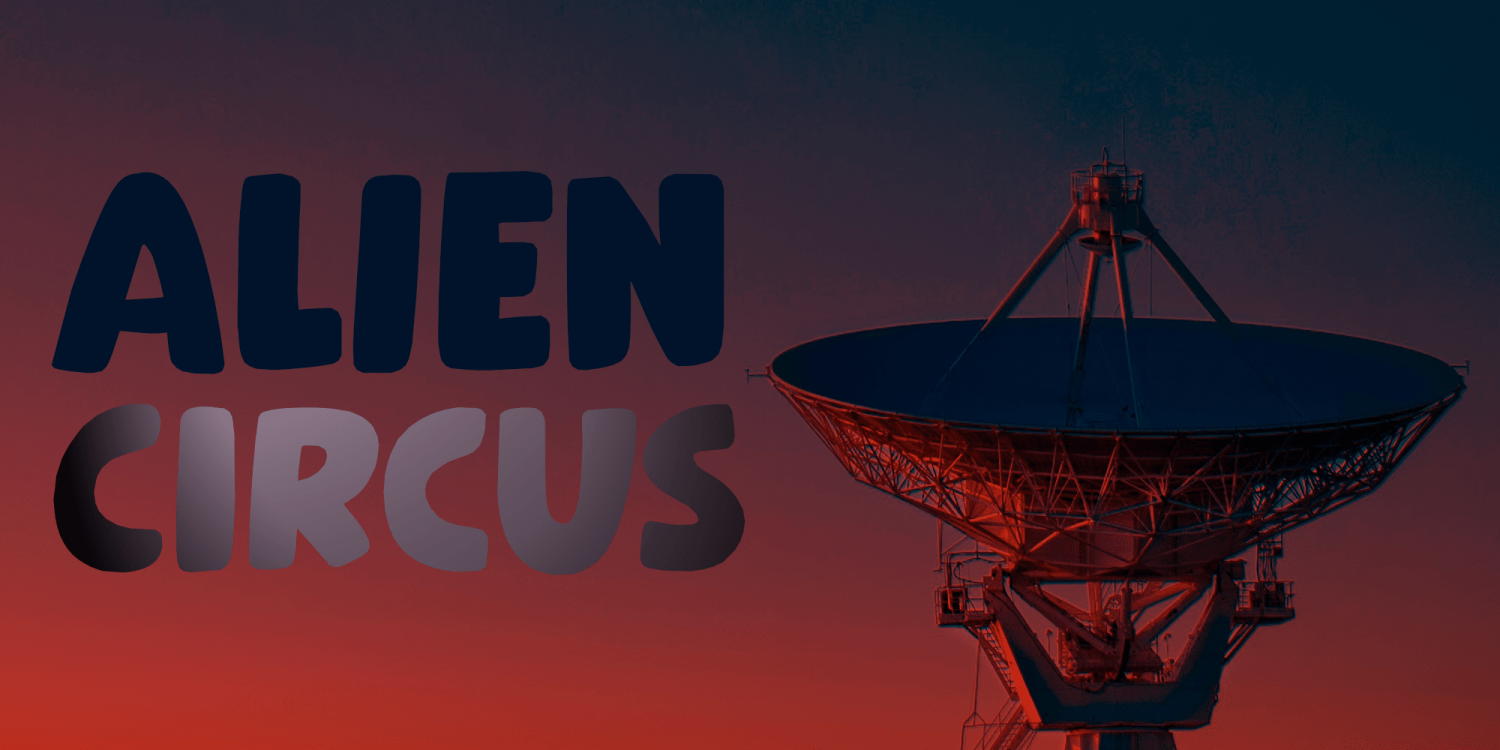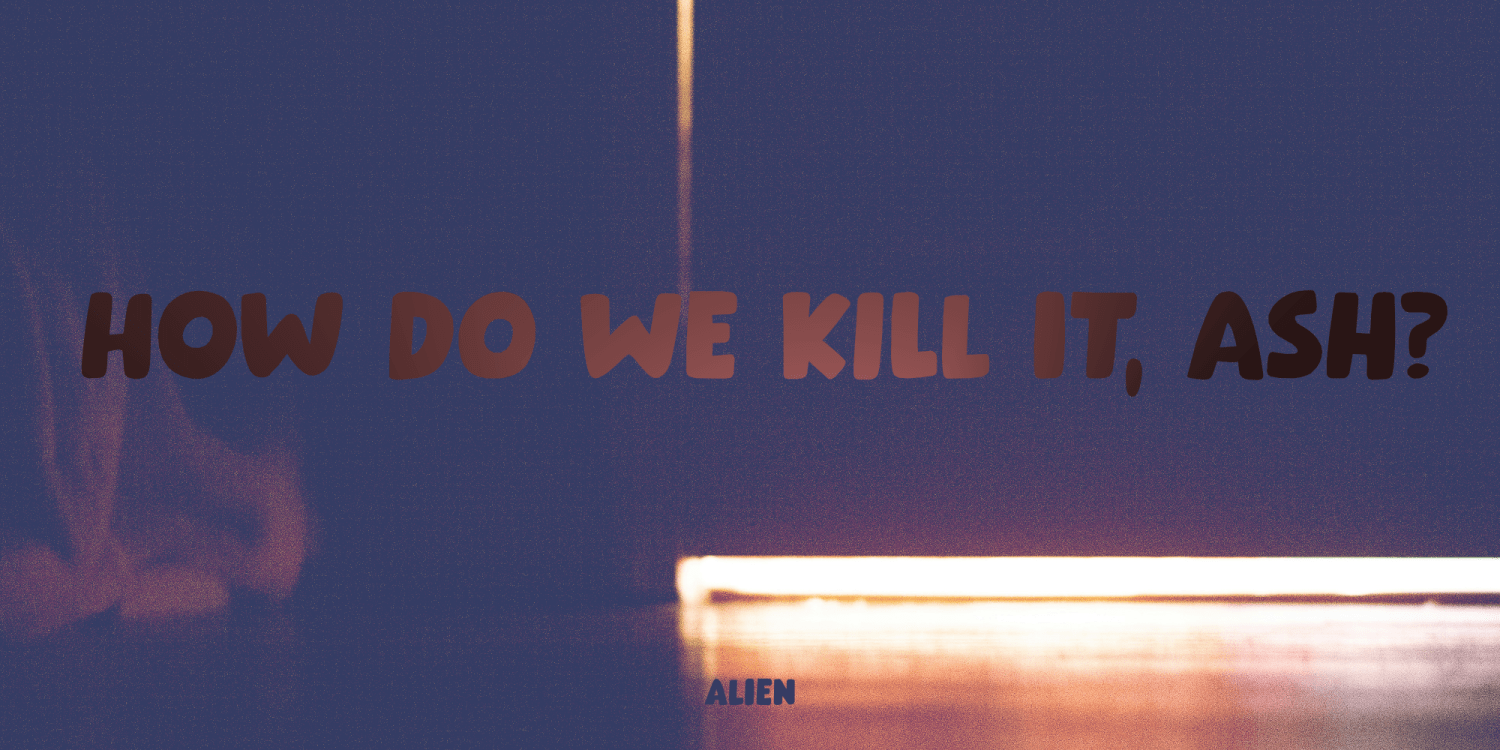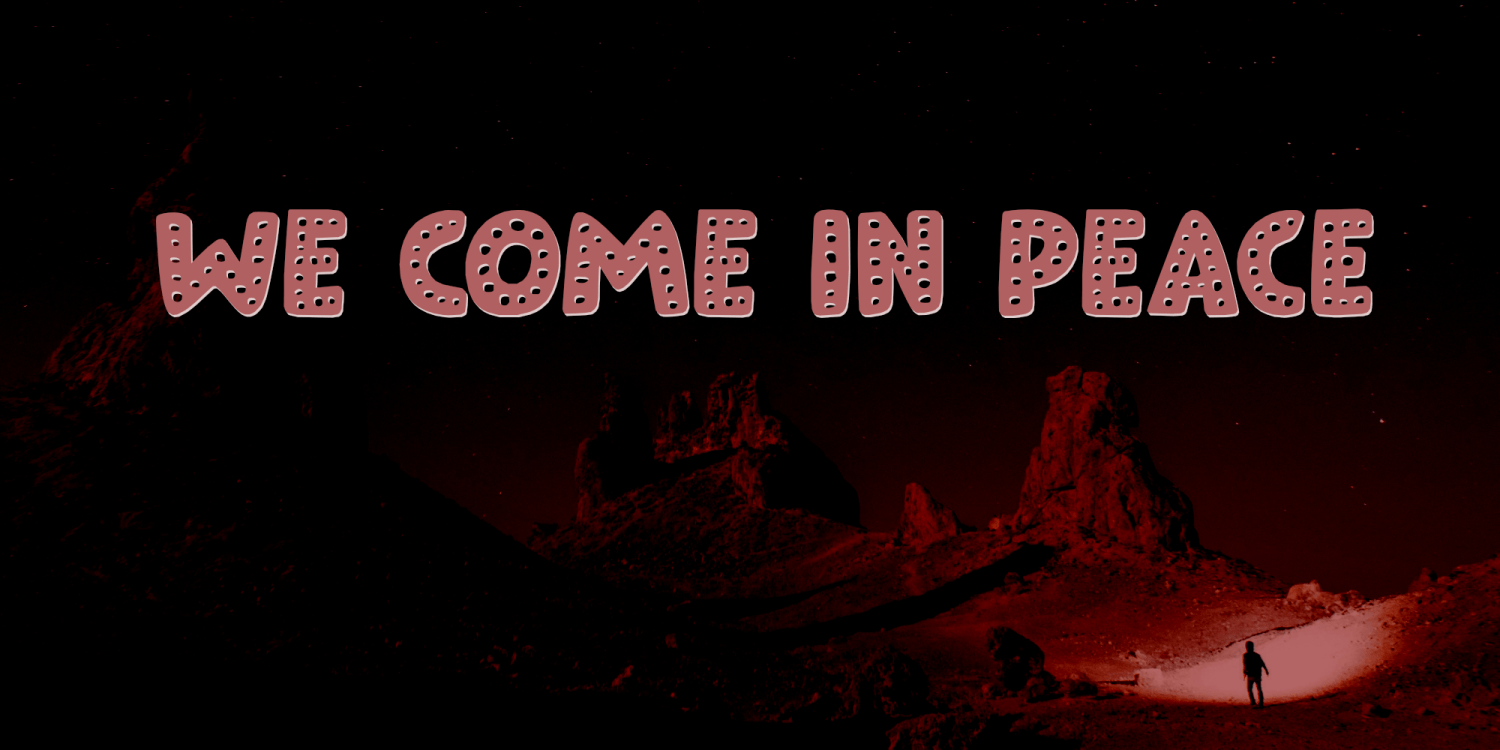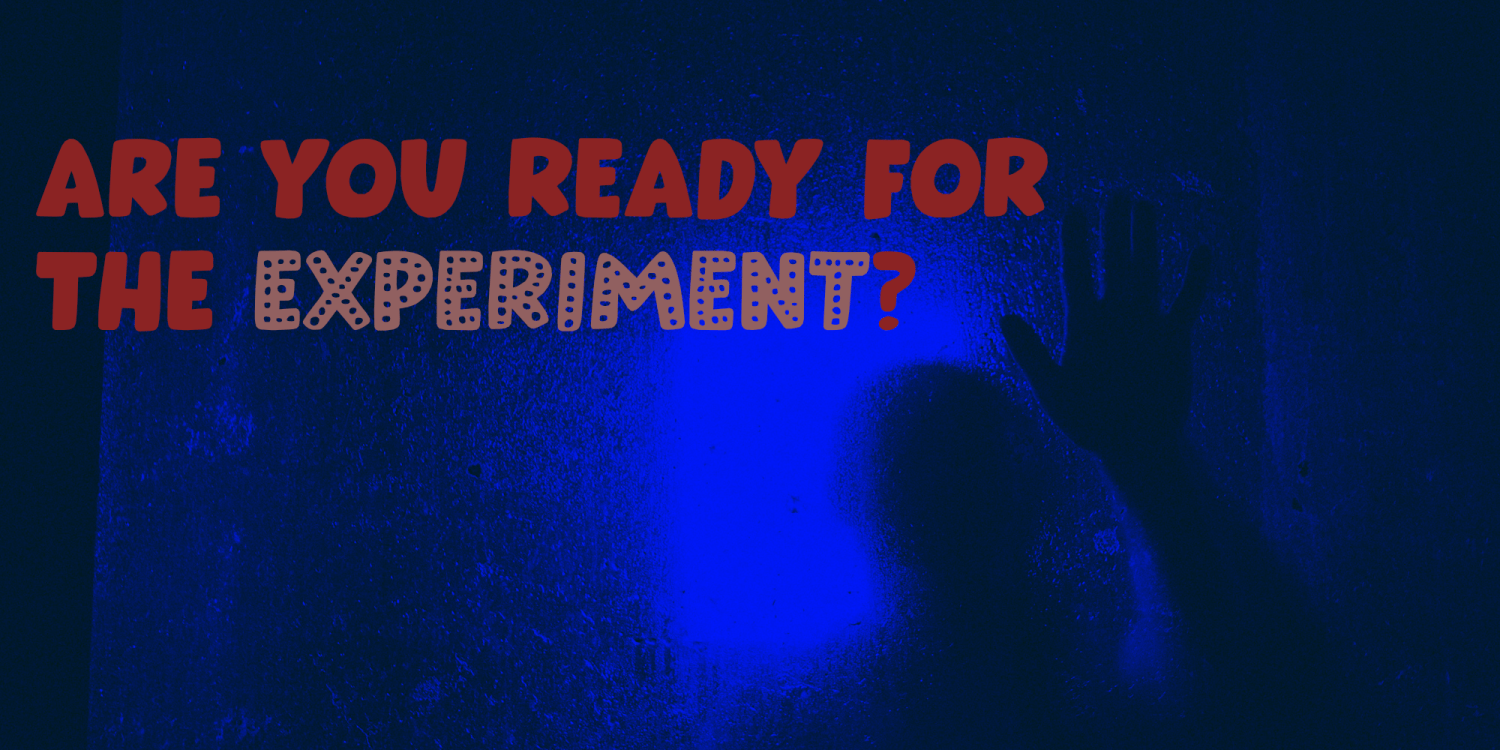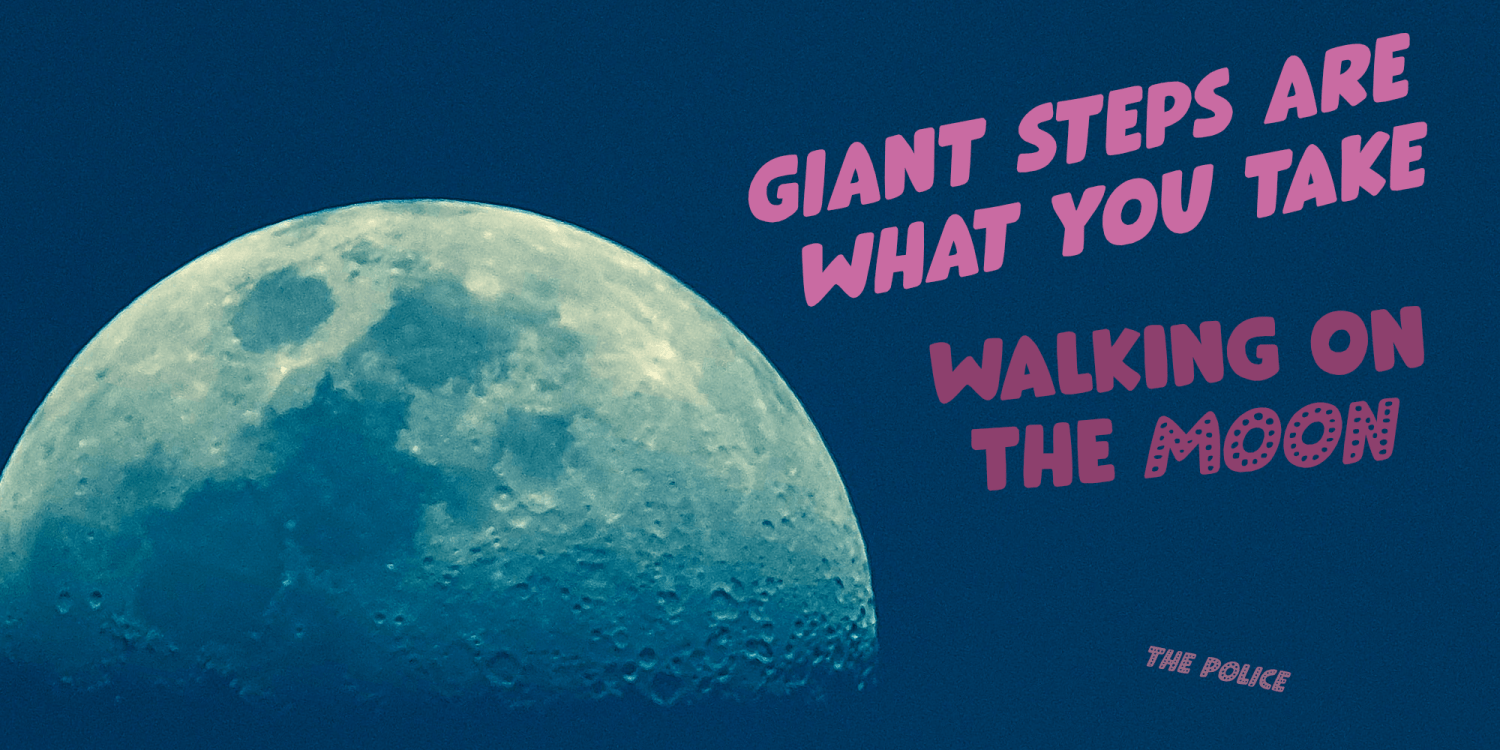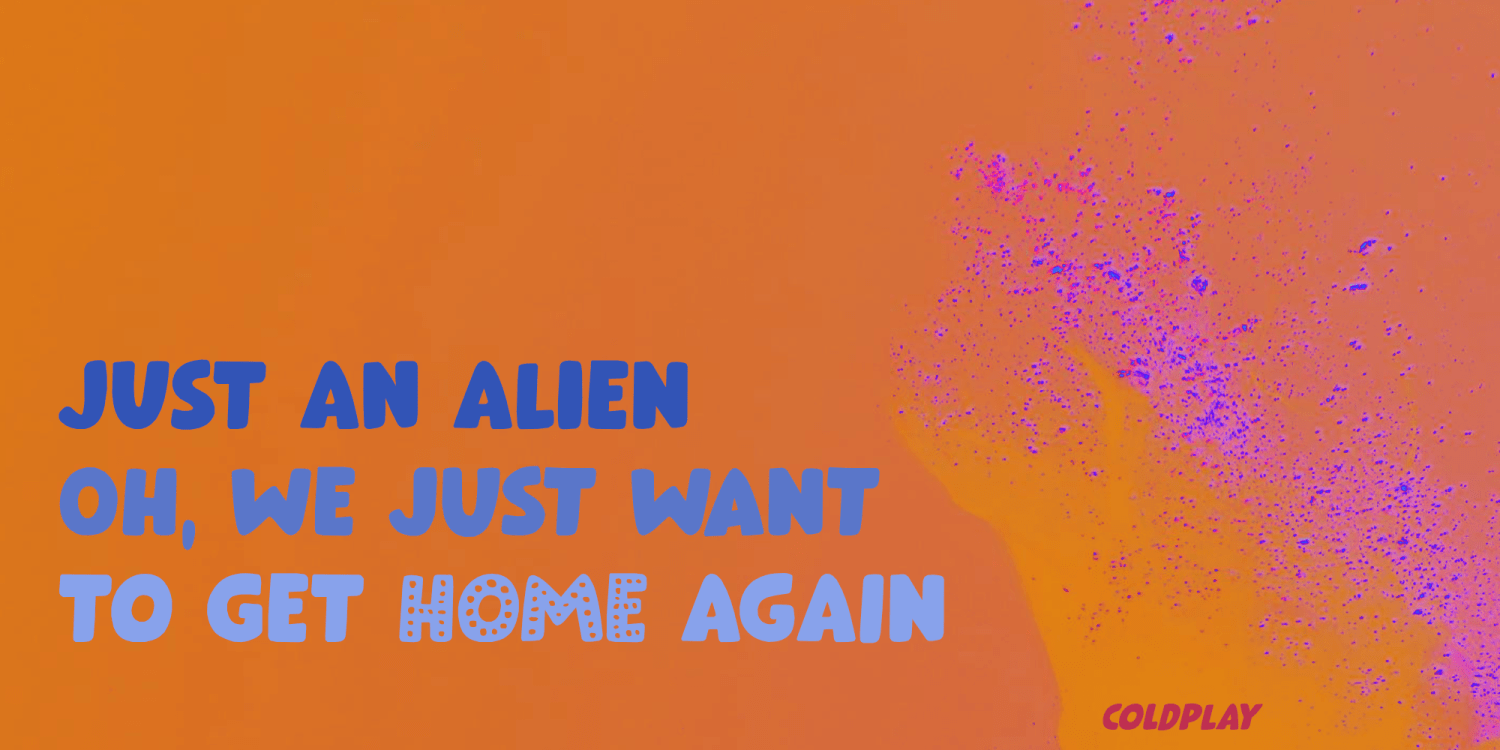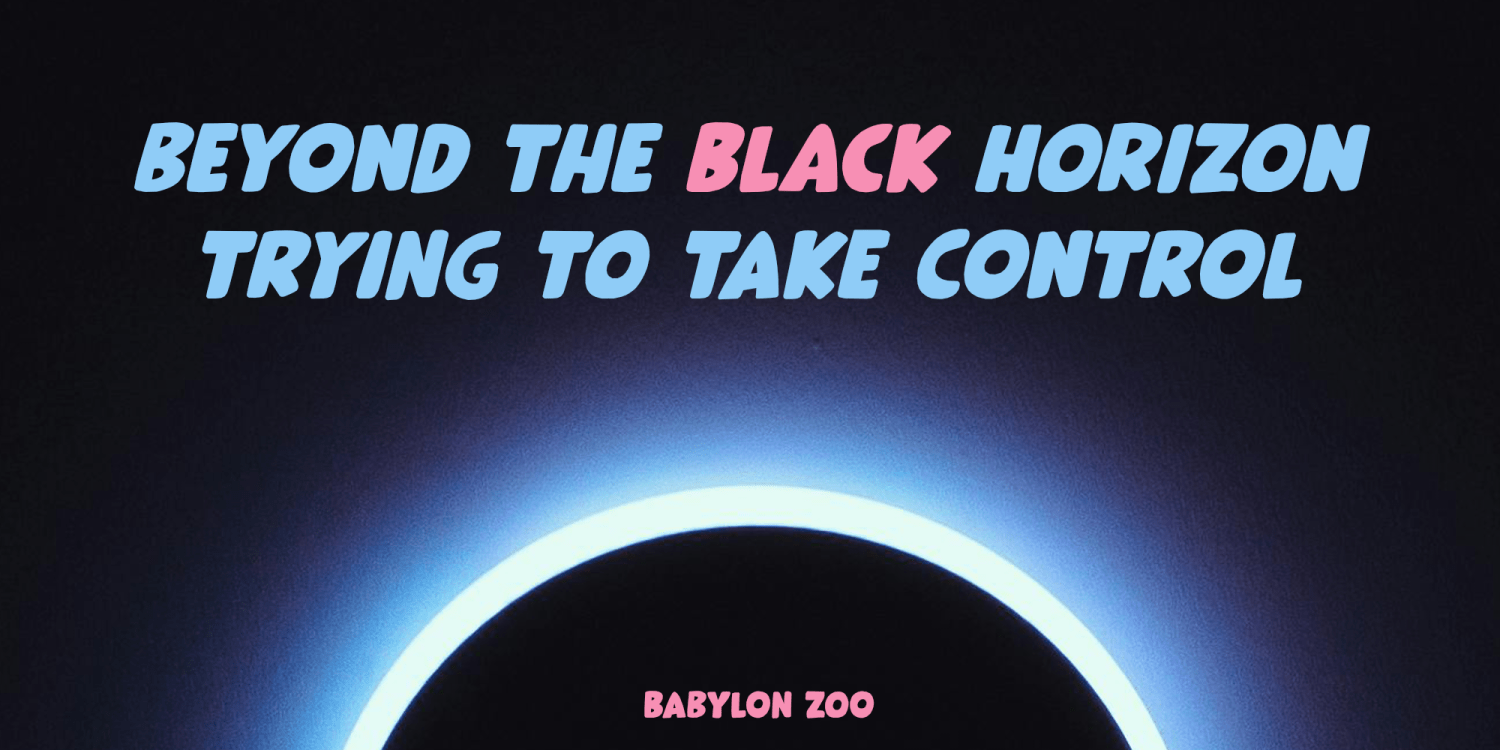
Alien Circus
I am in Japan right now, guiding a tour group. I love Japan, because it is so different from most countries, it could be a society on a different planet! As I was trying to navigate the busy subway in Osaka, I thought about this and decided to name my almost finished font after it.
Alien Circus is a nice, fat, handmade, laid back kind of font. Nothing fancy, nothing elegant, but uncomplicated and fun to use. I made a normal and a dotted set for you to play with.